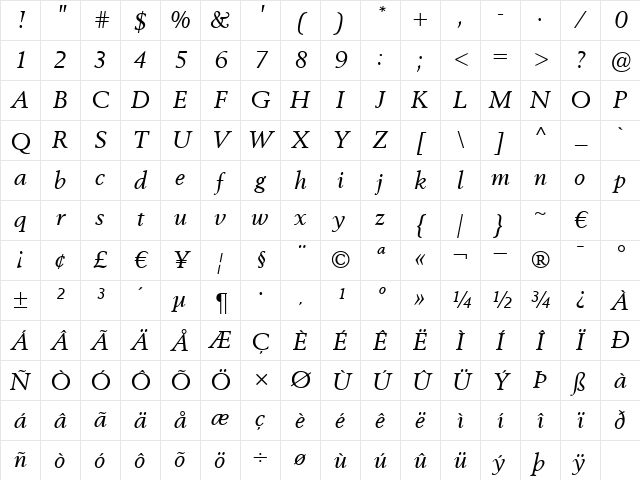
Complete VolvoSerif Italic glyph index. Displaying only characters natively supported by VolvoSerif Italic font.
VolvoSerif carries the refined structure of traditional serif typography, with bracketed terminals and considered proportions that communicate credibility and craft. The slanted form adds forward momentum and visual energy.
Pro Tip: Use VolvoSerif for editorial body copy and considered headline work. Pair with a neutral sans for UI elements or captions to create a classic hierarchy.